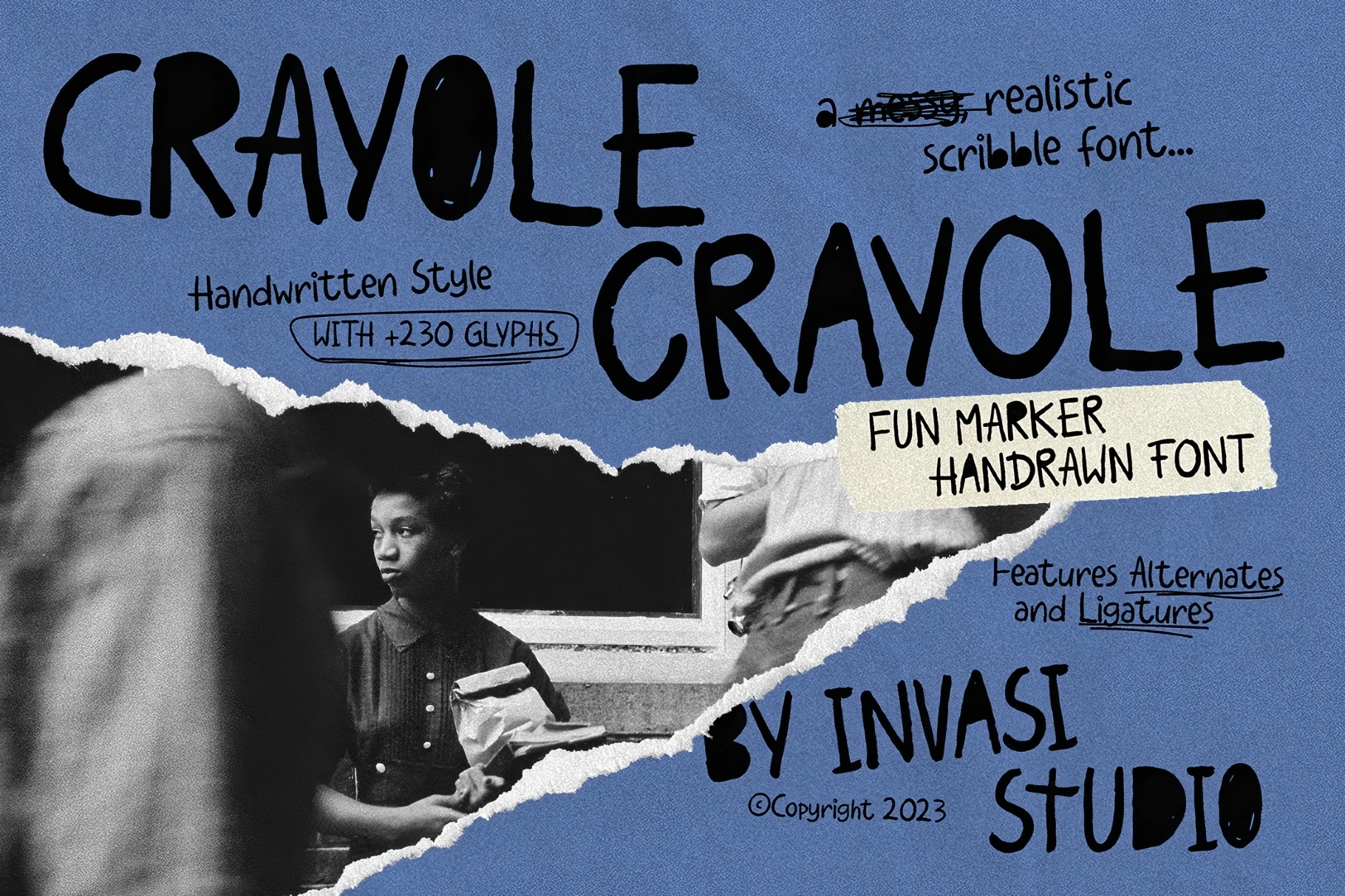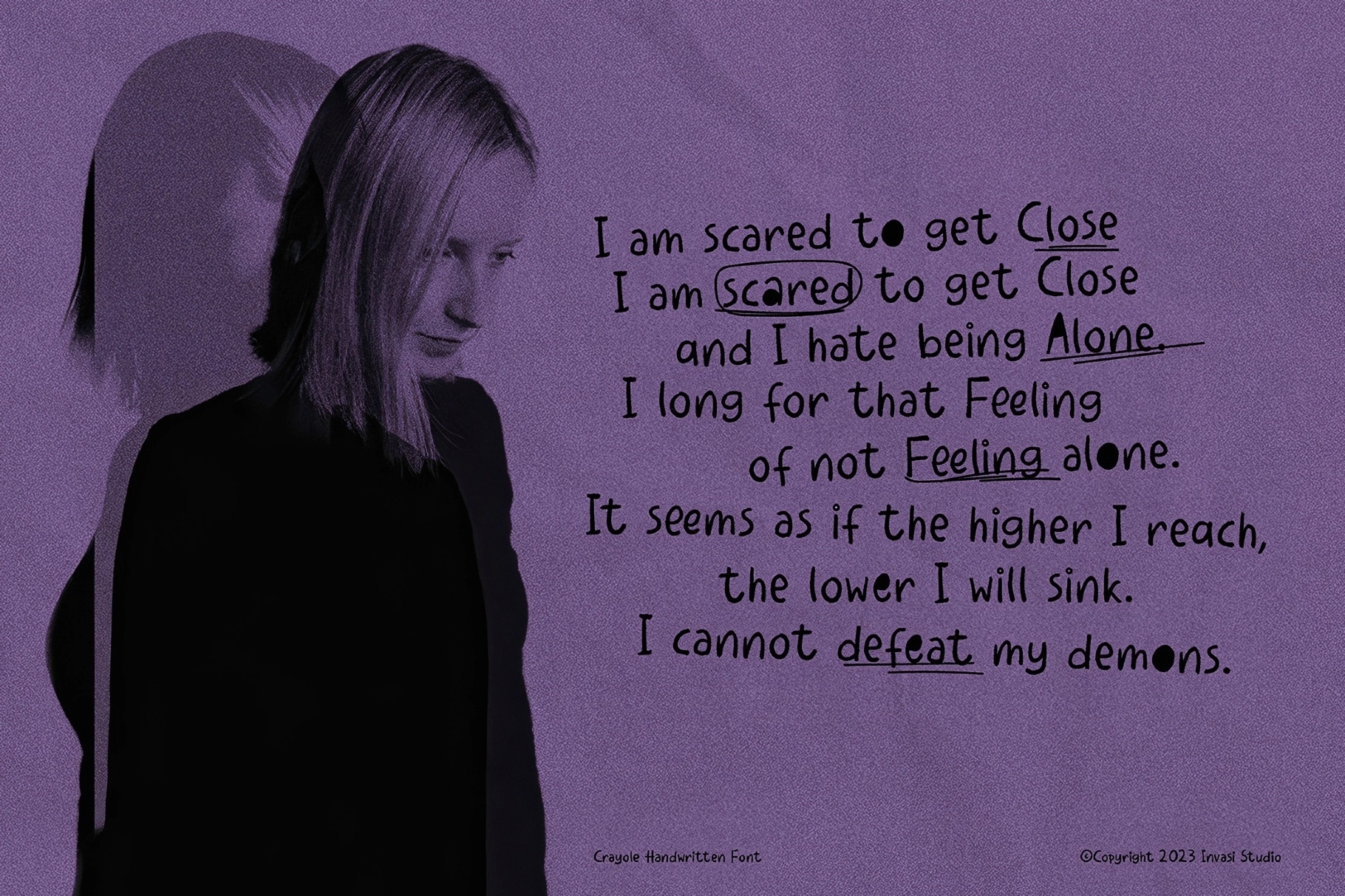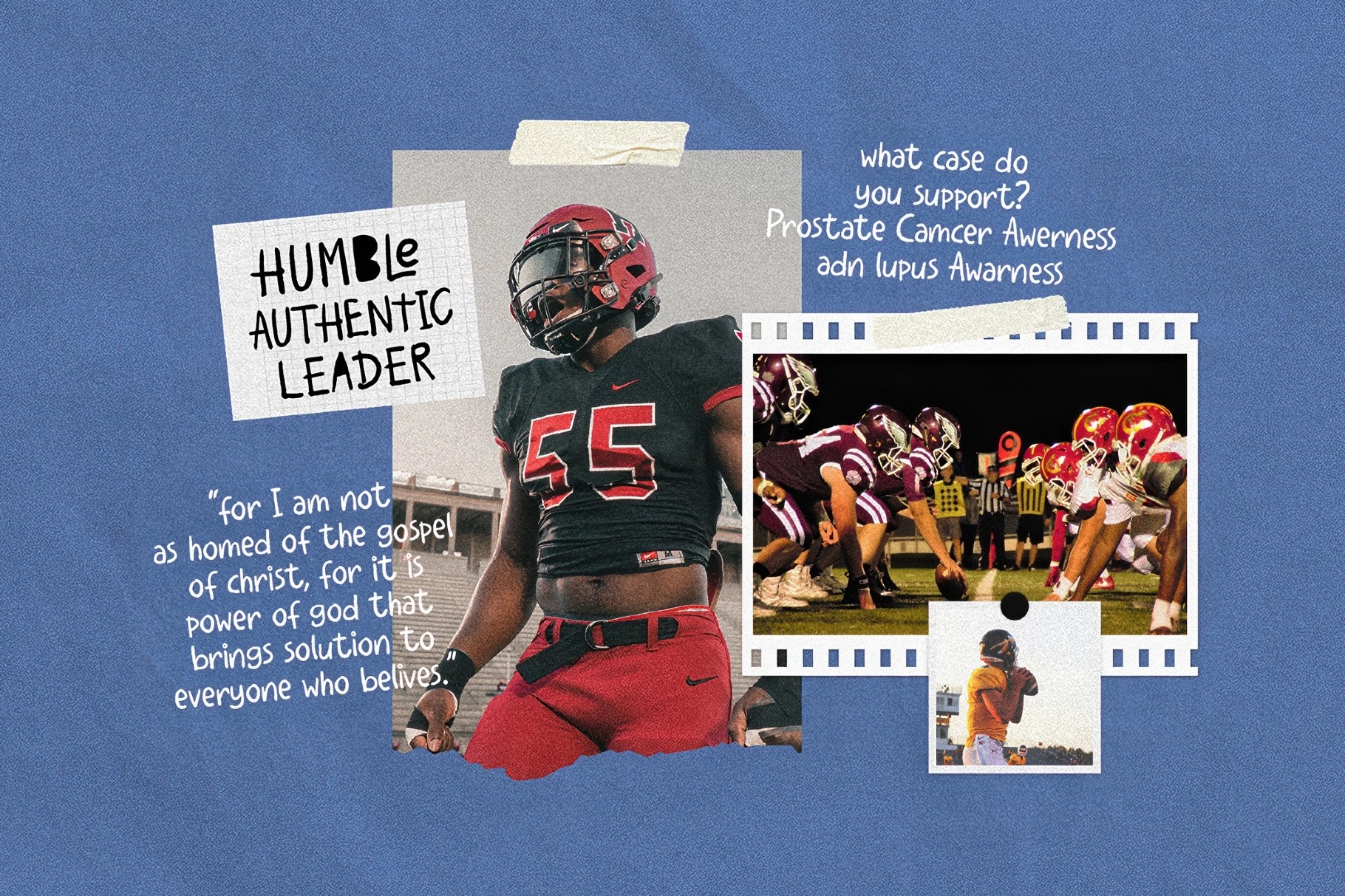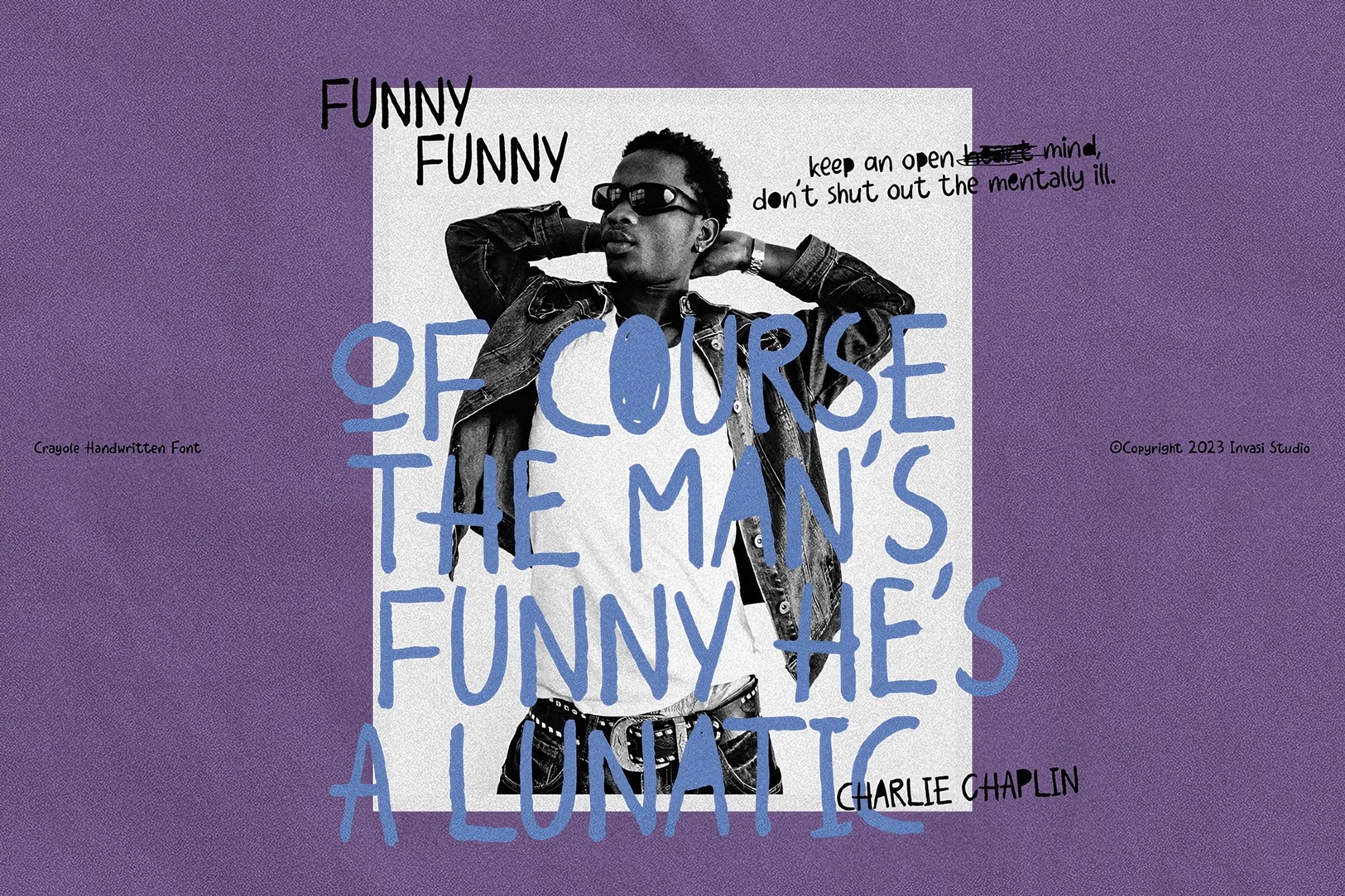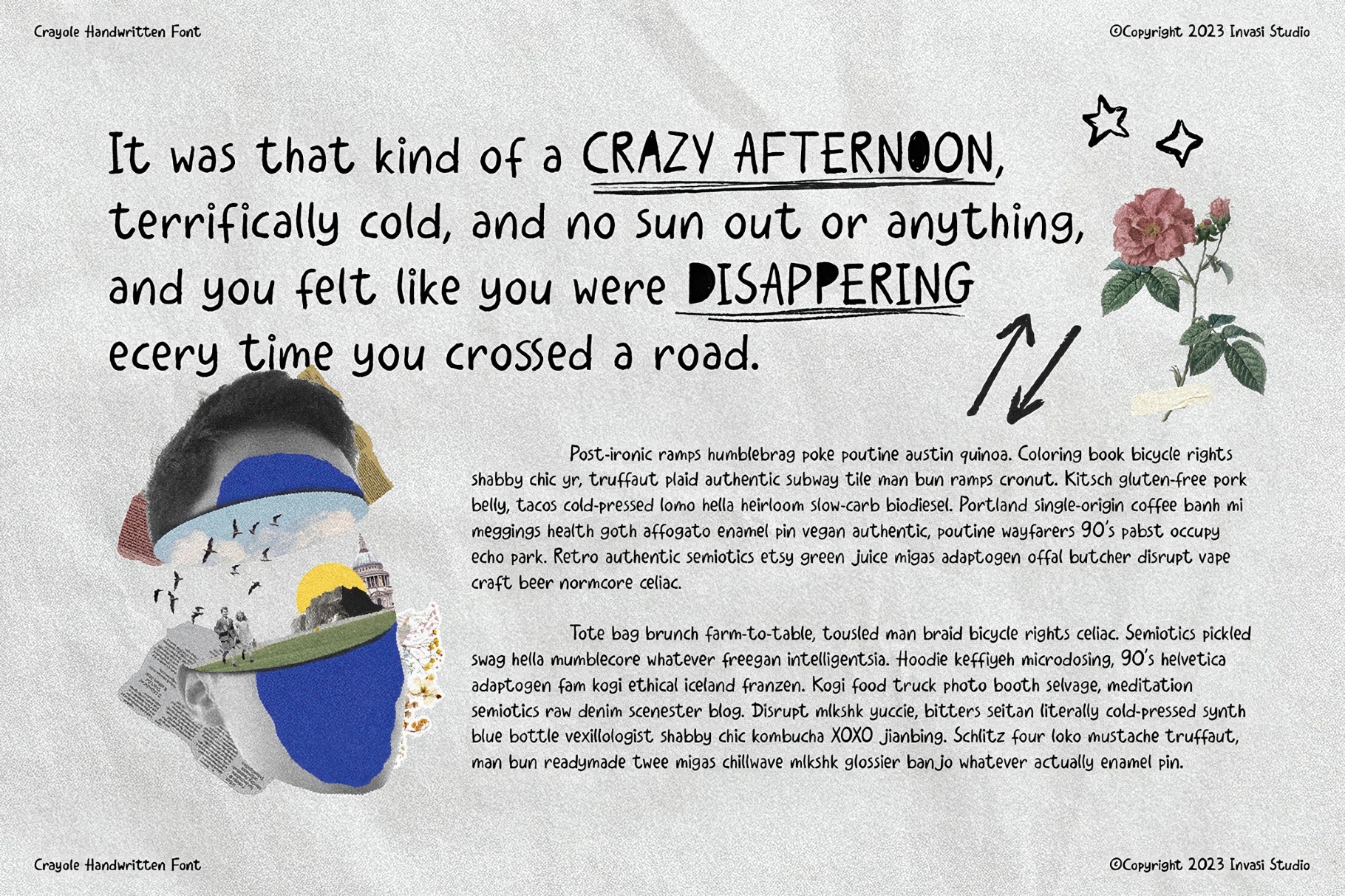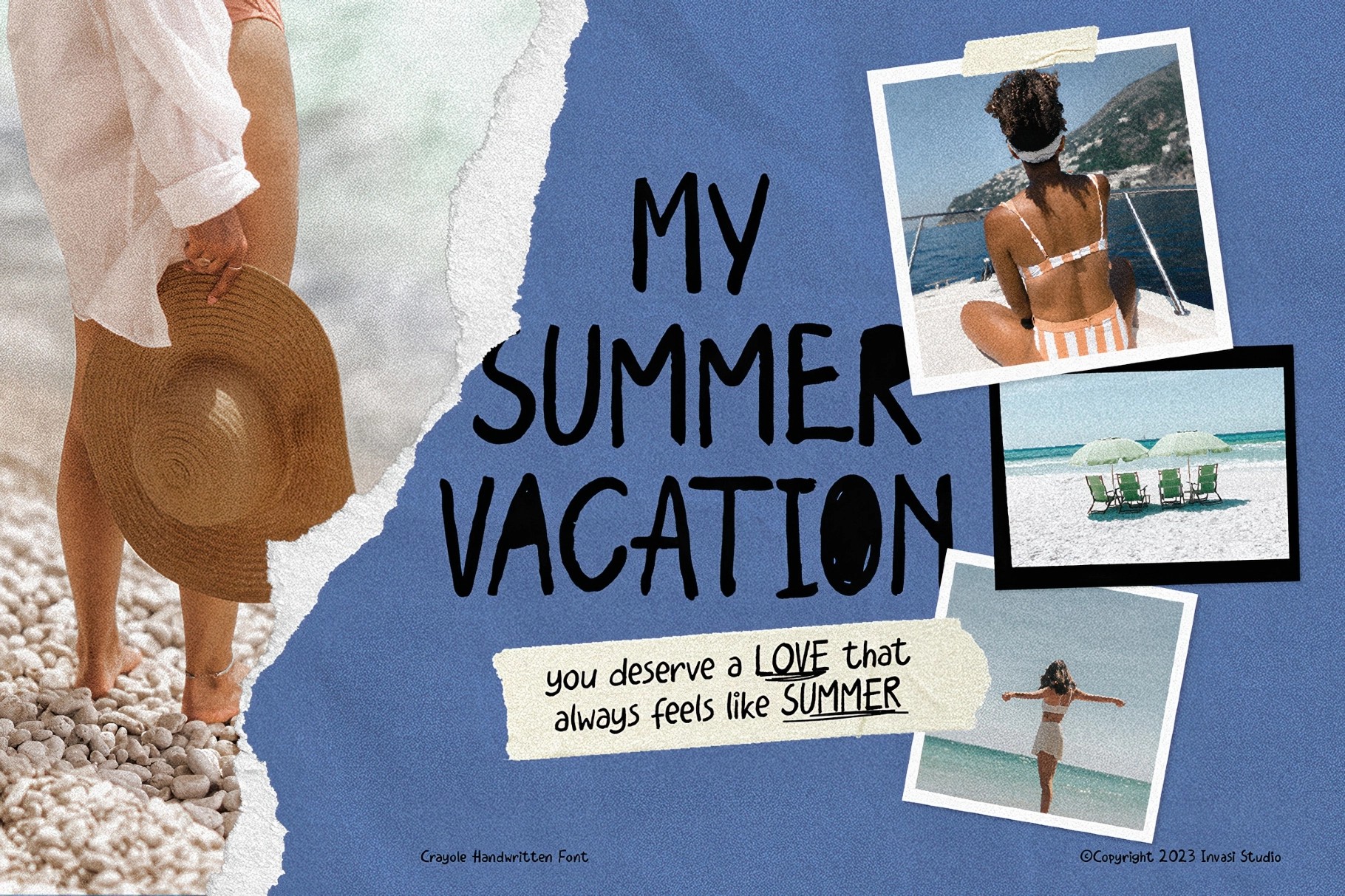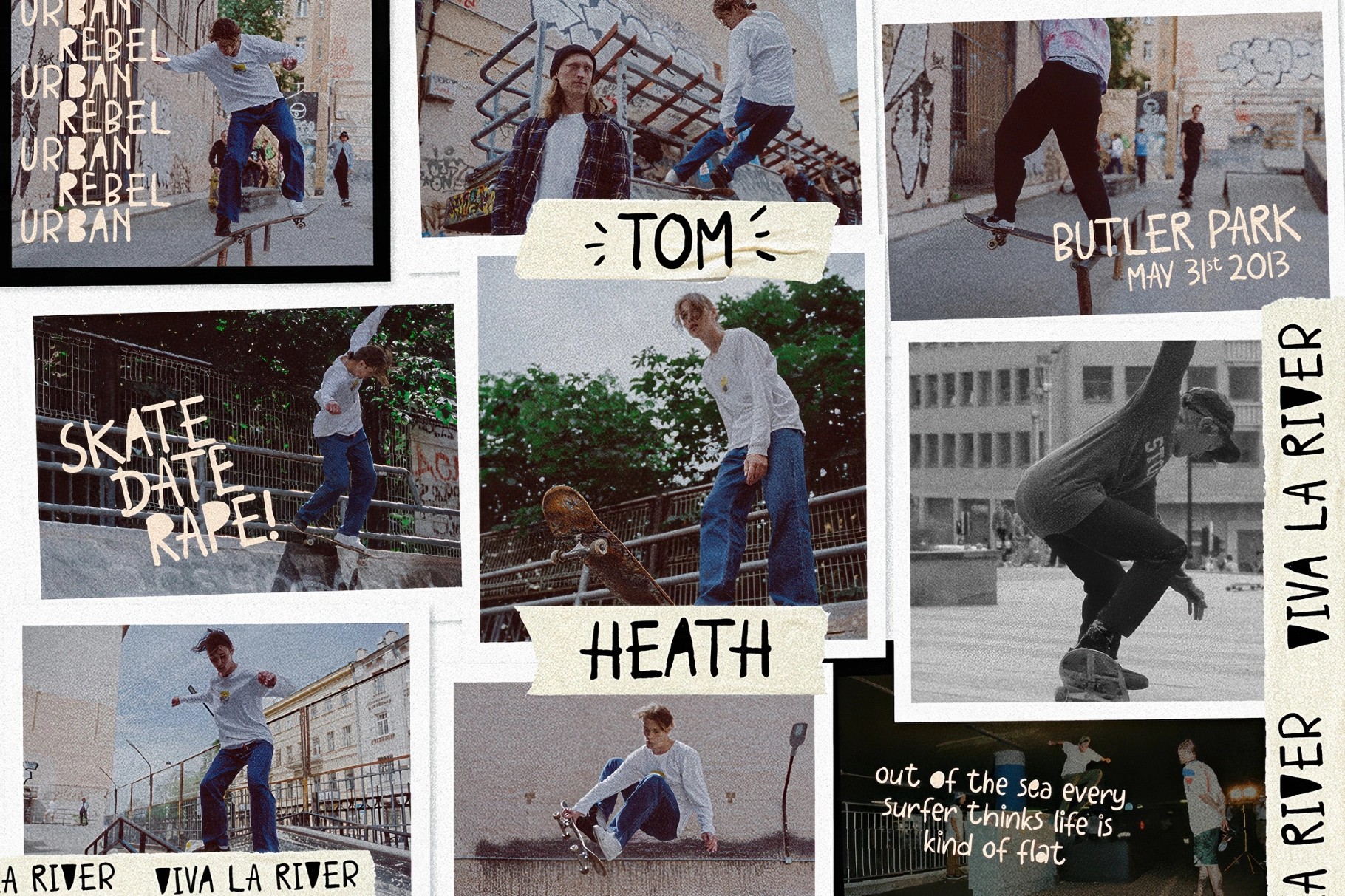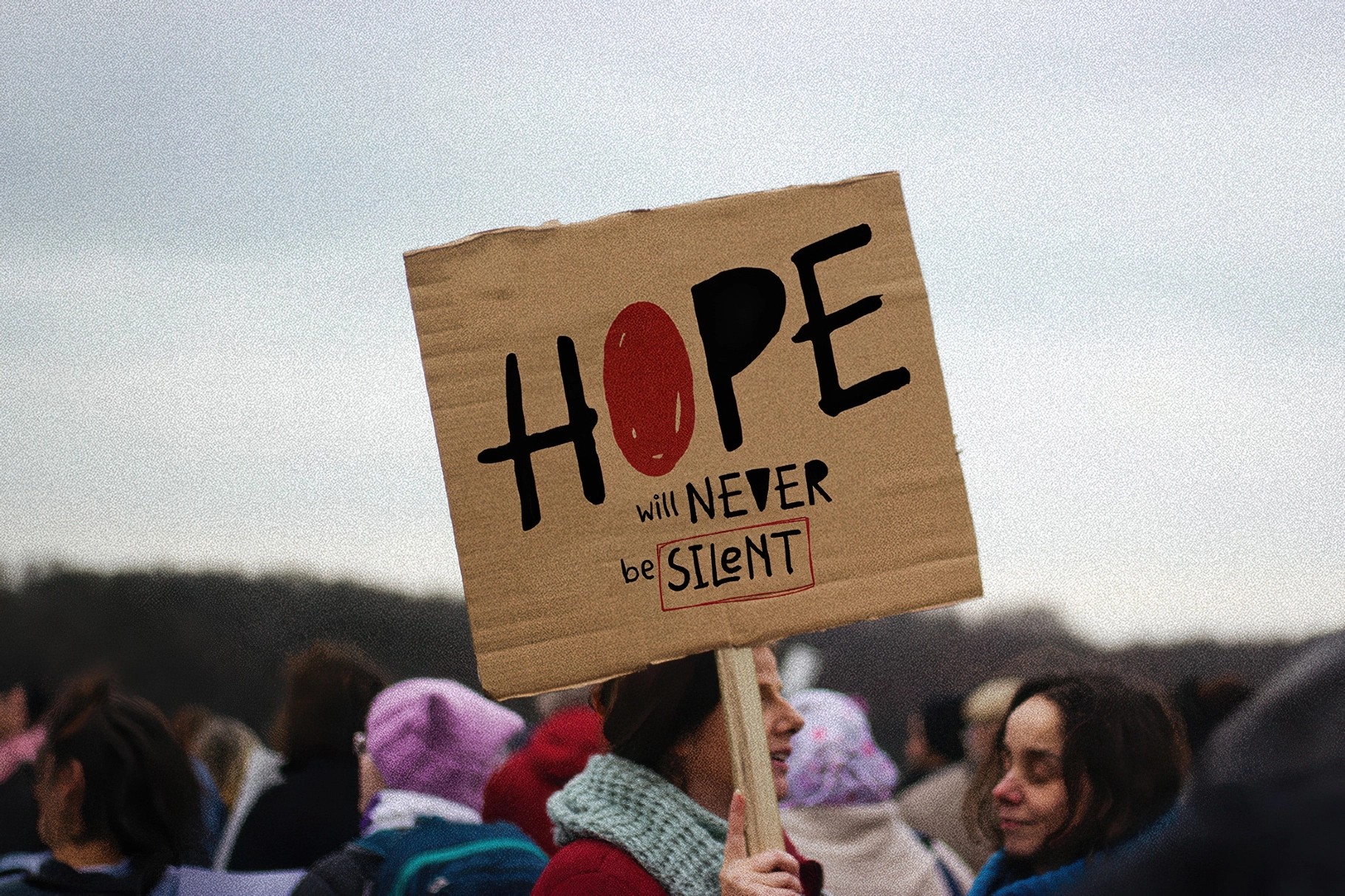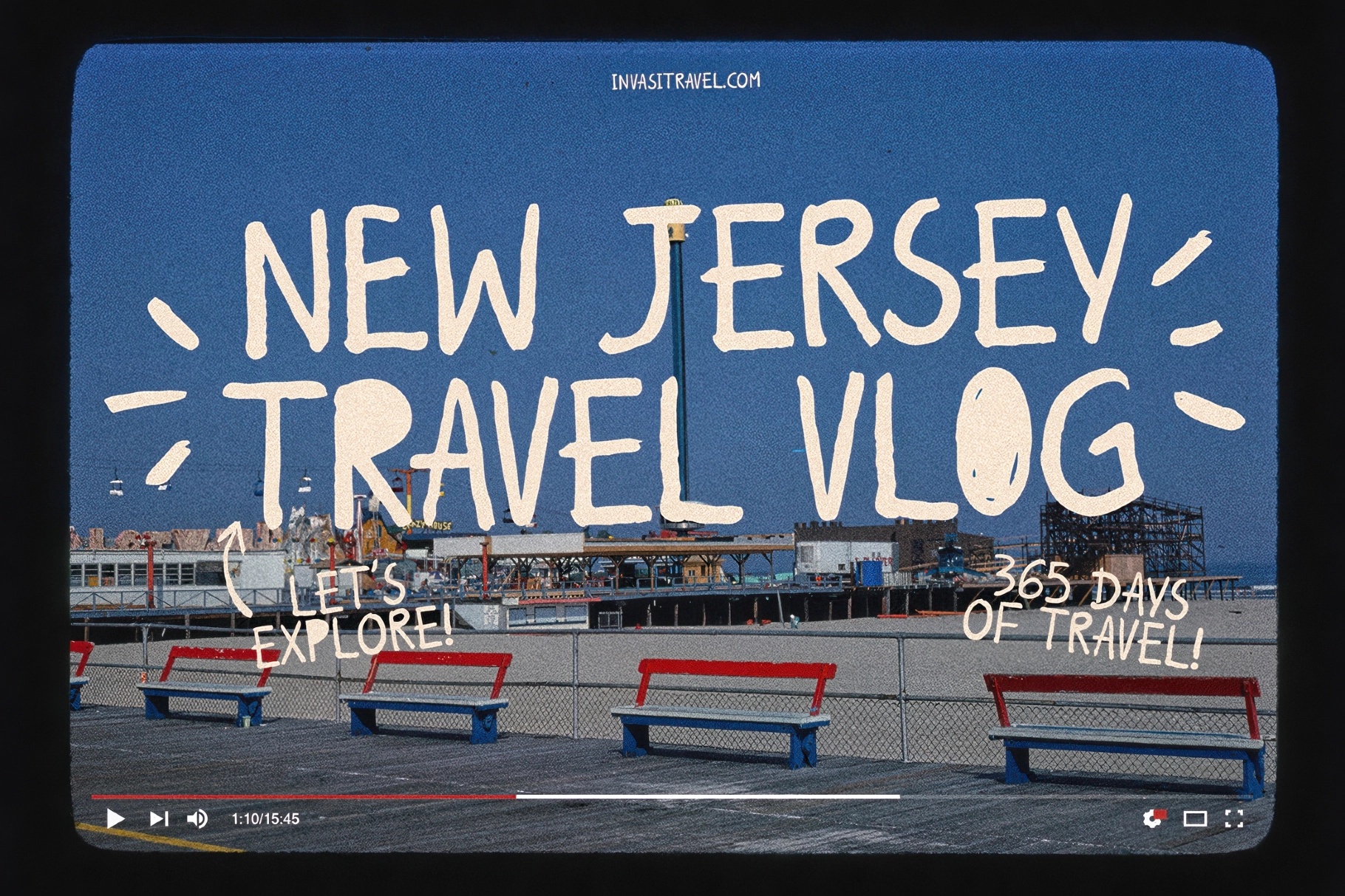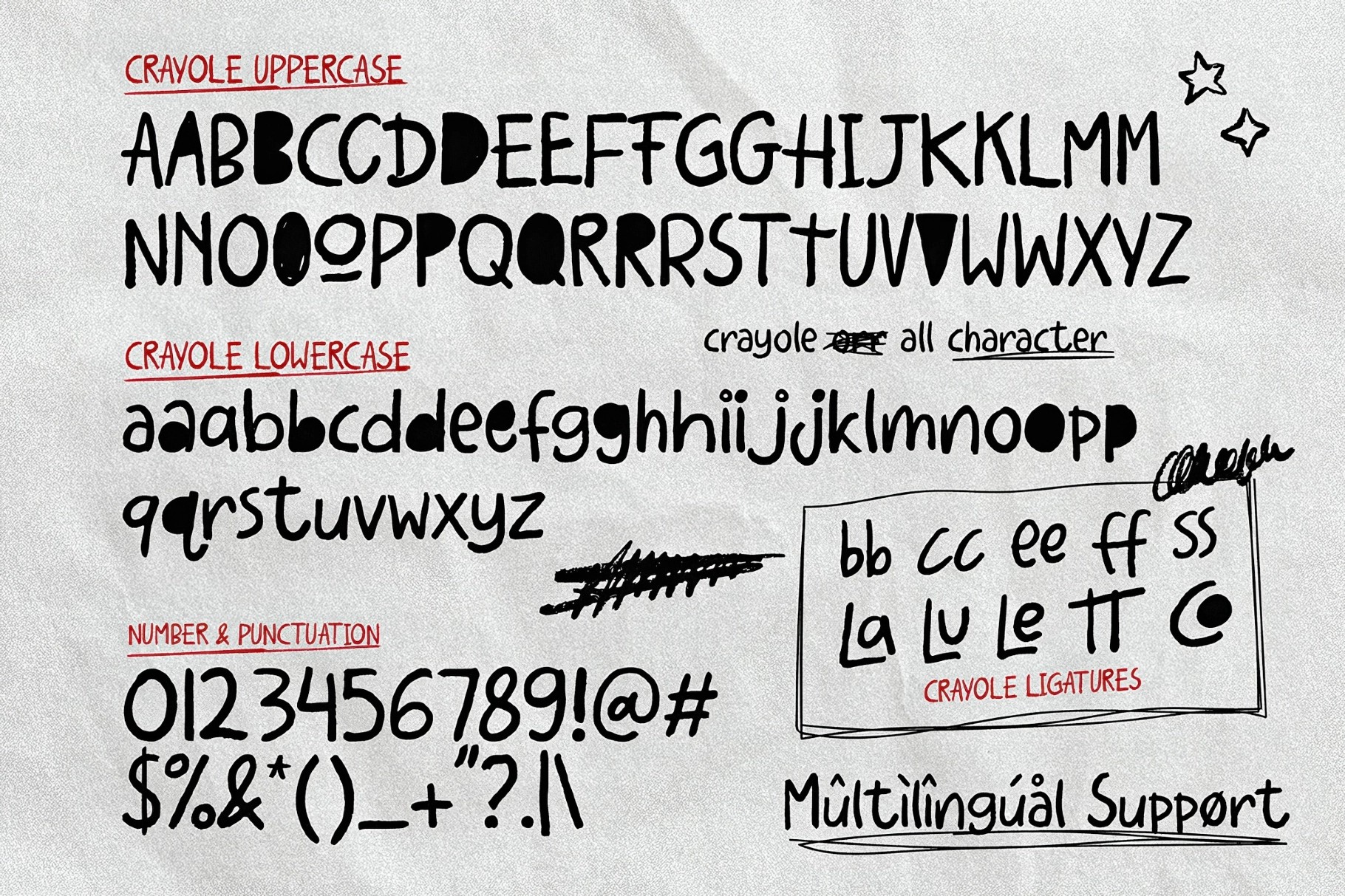
Crayole – Scribbles Handwritten Font
Crayole
Crayole was written in a hurry with a drying marker: quick, upright, a little scribbled, the honest wobble of a hand that isn't pushing to be neat. Letters lean at their own angles, weights jump between strokes, and alternates swap in second and third versions so the same word never comes out the same twice.
This handwritten marker font is like a real note. Set it where you want a human hand on the page: quote posts and lyric layouts, journal and scrapbook spreads, comic captions and speech bubbles, packaging and hang tags, casual branding, and social captions. The ligatures tidy up awkward letter pairs, and with 230+ glyphs, there's enough variety to keep a full paragraph looking genuinely handwritten.
- uppercase and lowercase characters;
- 230+ glyphs, with alternates and ligatures;
- multilingual Latin — 60+ languages, Western, Central, and Eastern European;
- numerals, punctuation, and currency.